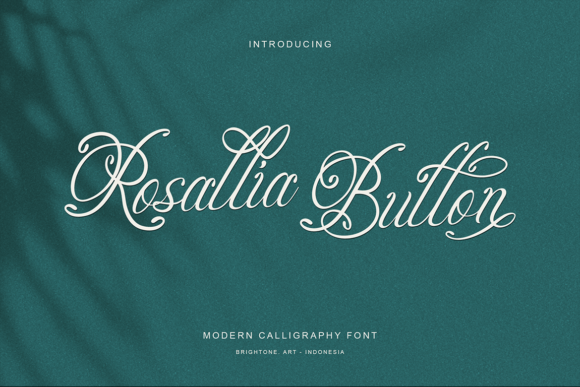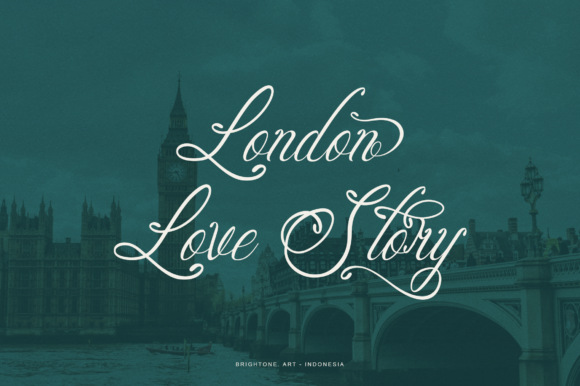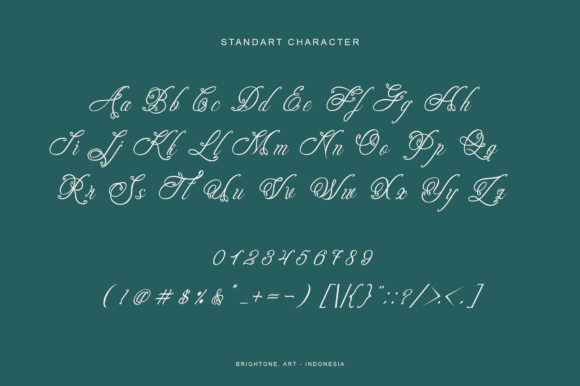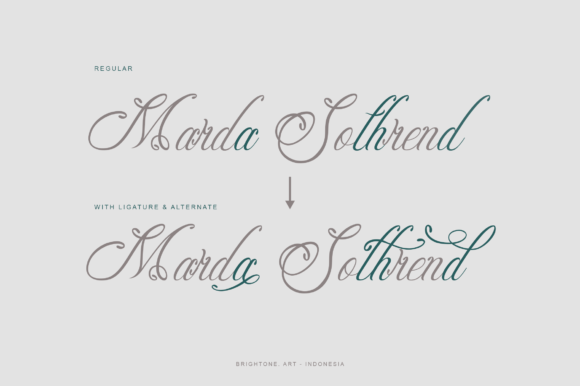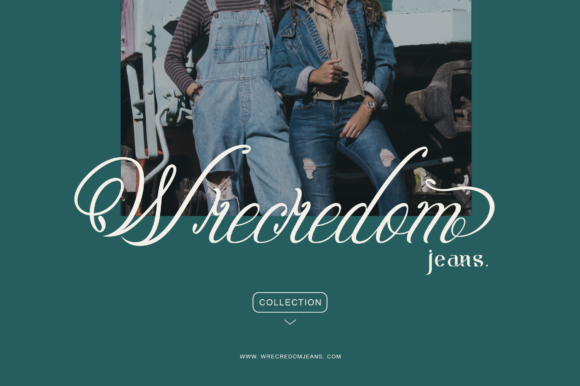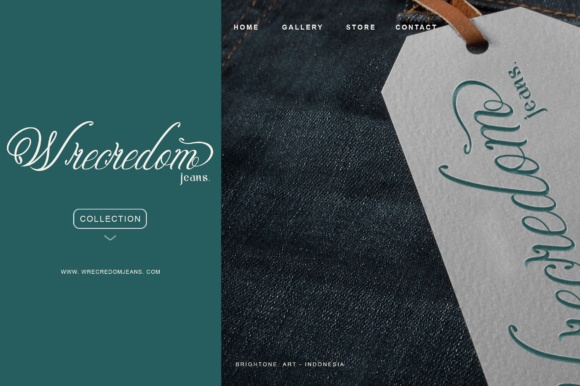
Rosallia Button Font
About Rosallia Button Font
Rossallia Button is a splendid script font. Use this professional and exquisite typeface for your logo lettering, shirt design, cosmetics label, magazine, sticker, branding, and you will love the results!